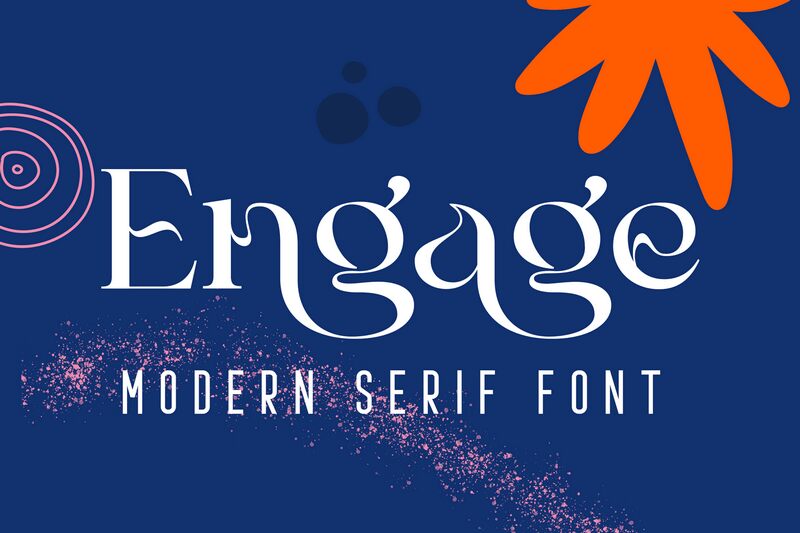
Engage Regular
Engage, the modern serif font designed by 177Studio, is a perfect blend of sophistication and elegance. Its semi-light weight gives it a refined touch while still being easy to read. Engage is ideal for branding projects that require a sleek and professional look, such as logos or business cards. It also complements editorial designs, making it an excellent choice for magazines or newspapers. The unique style of this font typeface makes it suitable for website headers and social media graphics as well. Engage is the go-to font for anyone looking to add a touch of class to their design project.